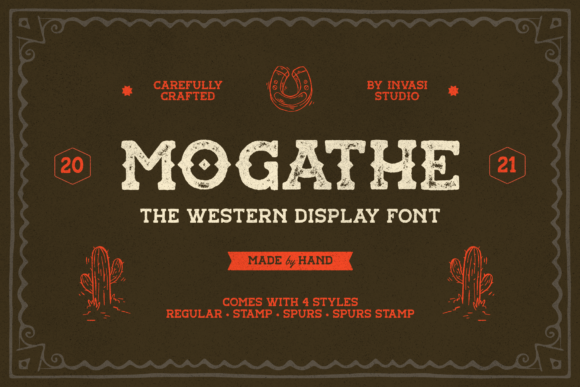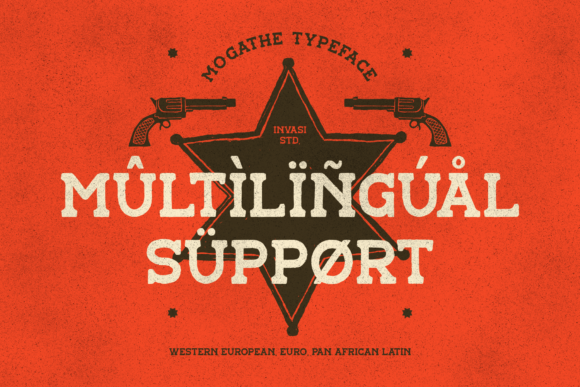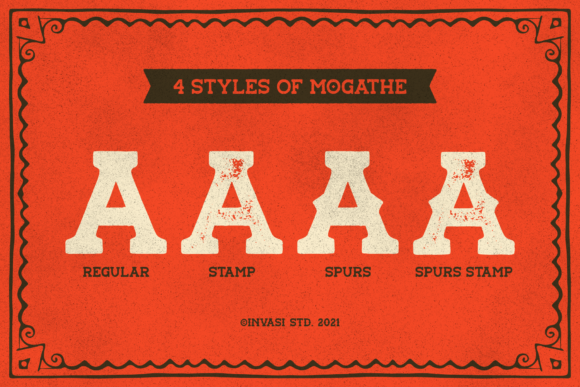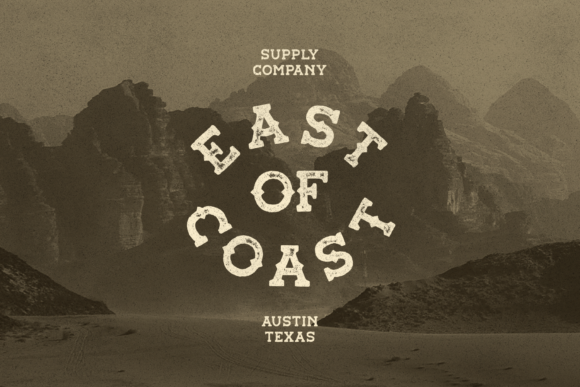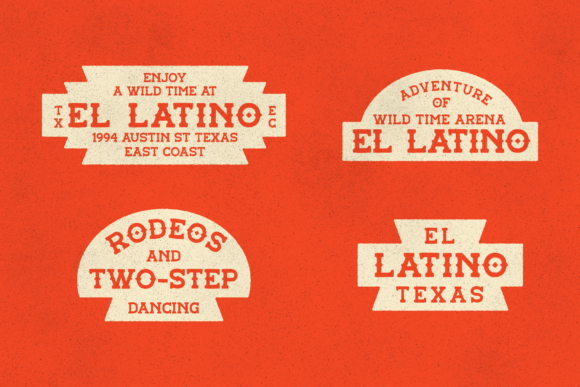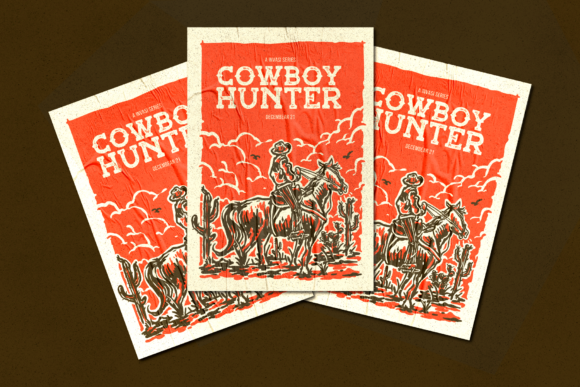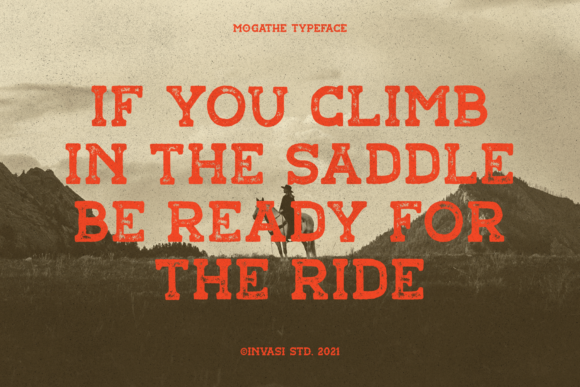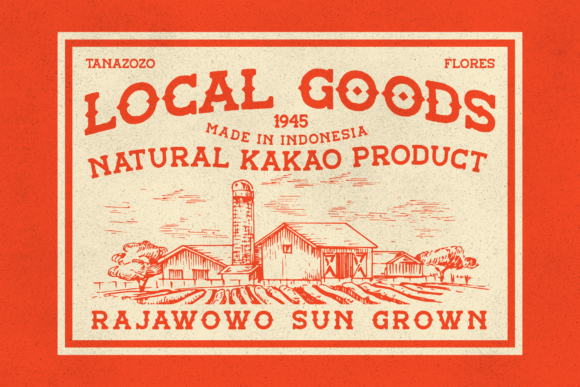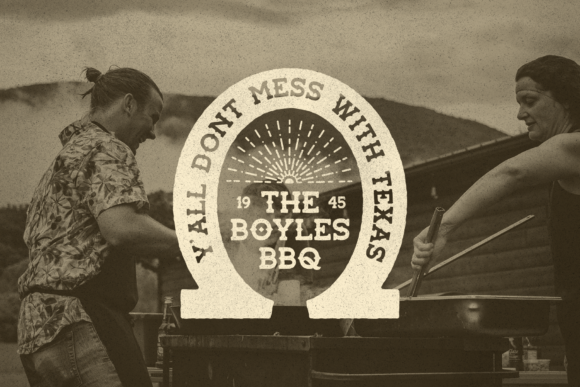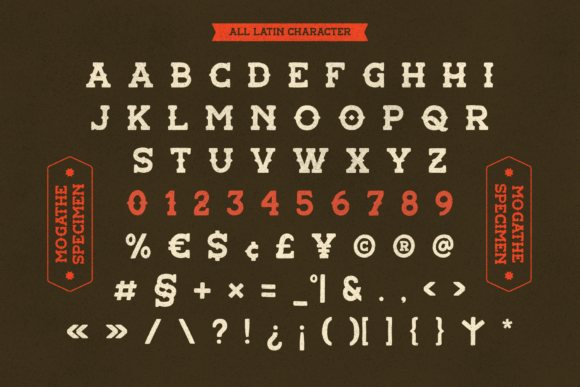
Mogathe
Mogathe Fonts
Mogathe: A Vintage Western Slab Serif Font
Mogathe is a distinctive slab serif font that captures the essence of the West life Era. This vintage-inspired typeface brings a touch of Western charm to various design projects.
Key Features of Mogathe
• Western Style: Evokes the spirit and aesthetics of the Old West.
• Vintage Look and Feel: Offers a nostalgic appearance reminiscent of historical Western typography.
• Slab Serif Structure: Incorporates the characteristic thick, rectangular serifs typical of slab serif fonts.
• Versatile Application: Suitable for a wide range of projects needing a Western or vintage touch.
• Confident Design: Bold enough to stand out and make a statement in various designs.
Ideal Uses for Mogathe
Mogathe’s unique characteristics make it particularly well-suited for:
• Western-themed branding and logo design
• Vintage-inspired packaging and labels
• Book covers for Western or historical novels
• Posters and advertisements for country or Western events
• Signage for rustic or Western-style establishments
• Website headers and digital content with a Western flair
When incorporating Mogathe into your designs, consider these tips:
• Use for headlines or short blocks of text to maximize its Western and vintage impact
• Experiment with different sizes to highlight the font’s unique details
• Take advantage of its vintage look for projects that require a touch of nostalgia
Mogathe is an excellent choice for designers looking to add a vintage Western slab serif font to their typographic toolkit. Its ability to evoke the West life Era makes it stand out in the world of typography. Whether you’re working on logo designs for Western-themed brands, creating layouts for vintage-inspired content, or developing projects that require a touch of Old West charm, Mogathe offers the perfect blend of nostalgia and versatility.
Furthermore, Mogathe’s vintage aesthetic allows it to shine in various contexts. From vintage-inspired designs to more contemporary layouts that need a touch of Western flair, this font can elevate your projects. Its bold yet vintage style works particularly well in designs that require a thoughtful and nostalgic mood.
In conclusion, Mogathe is a font that truly captures the spirit of the Old West with its vintage look and feel. Its ability to work well in both rustic, vintage-style projects and modern designs that require a Western touch showcases its flexibility. For those looking to add a dash of Western charm to their work, Mogathe can even enhance themed creations with its unique, vintage-inspired style. Add it confidently to your projects, and you will love the results it generates.